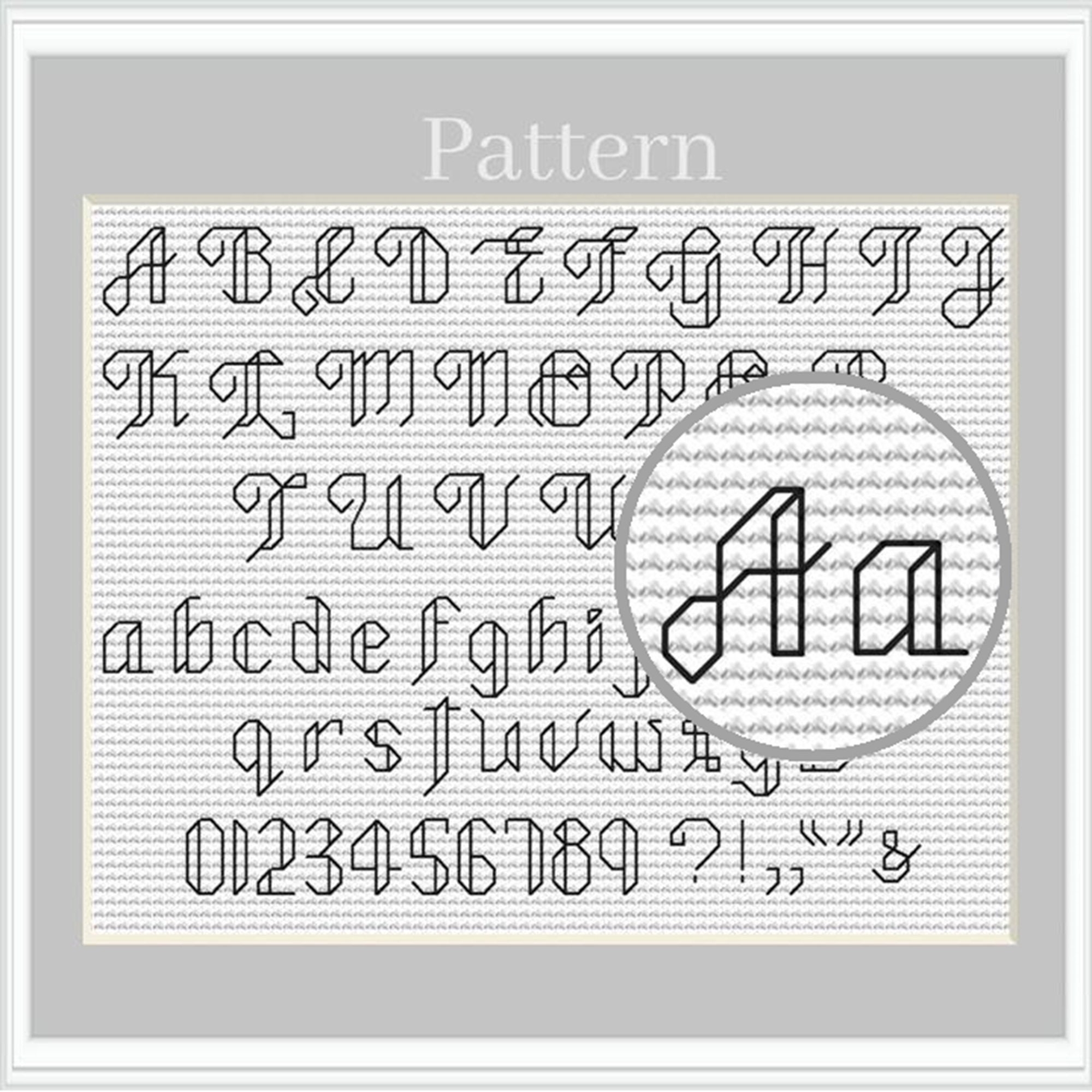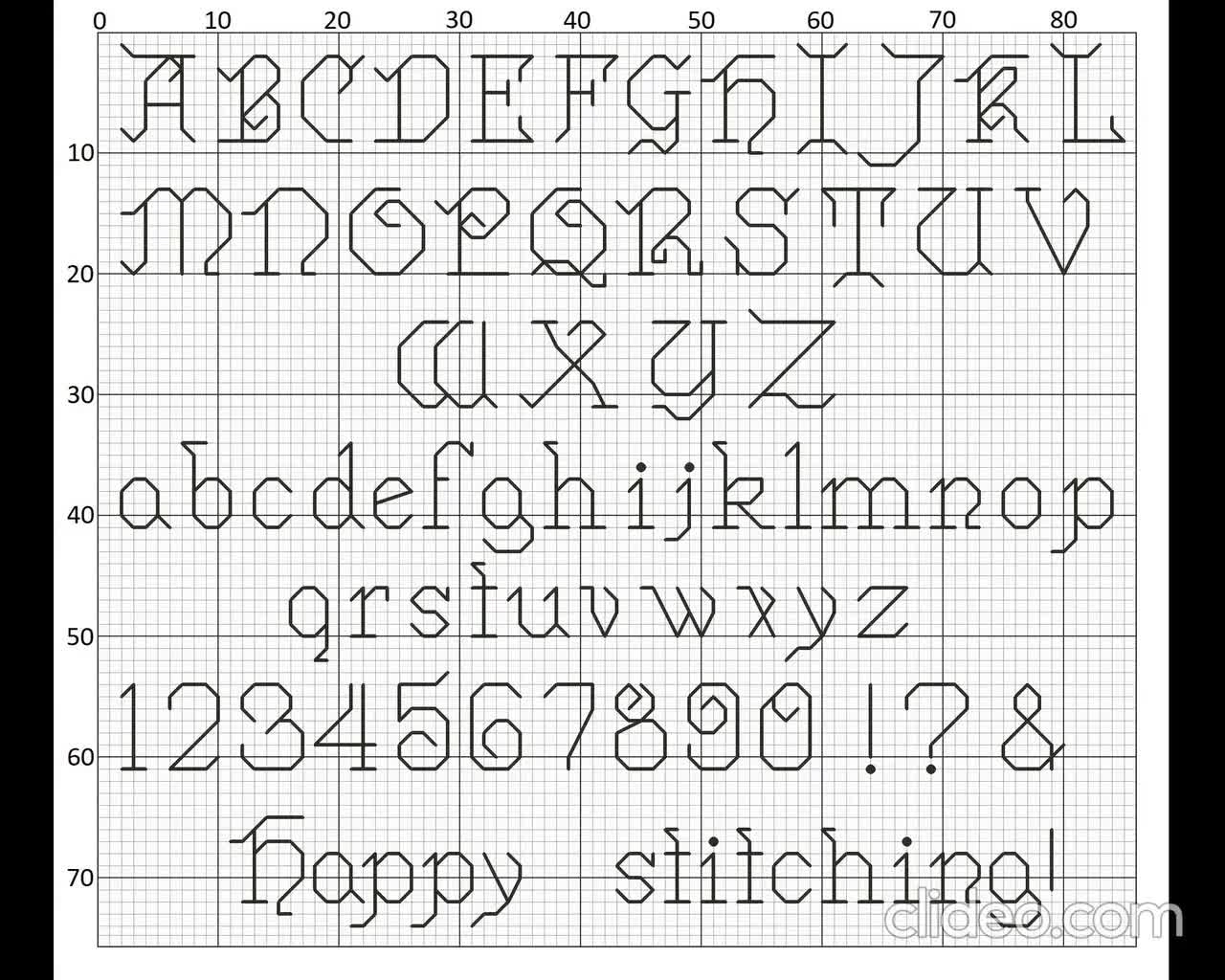
Are you on the hunt for some cool and trendy fonts for your next project? Look no further! We have got you covered with a fantastic selection of free printable back stitch fonts that are sure to add a unique touch to your designs.
Whether you’re working on a personal DIY project or a professional design, these fonts are versatile and easy to use. From elegant scripts to bold and playful styles, there’s something for everyone in our collection of free back stitch fonts.
One of the best things about back stitch fonts is that they give your text a handcrafted look without the need for actual stitching. You can easily download and print these fonts to use in various projects, such as posters, invitations, or even embroidery patterns.
With a wide range of styles and designs to choose from, you can find the perfect back stitch font to match your unique aesthetic. Whether you prefer a classic and timeless look or something more modern and fun, there’s a font that will suit your needs.